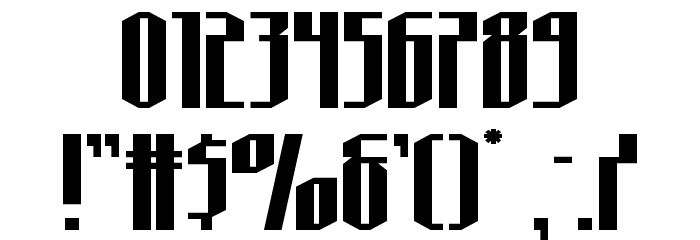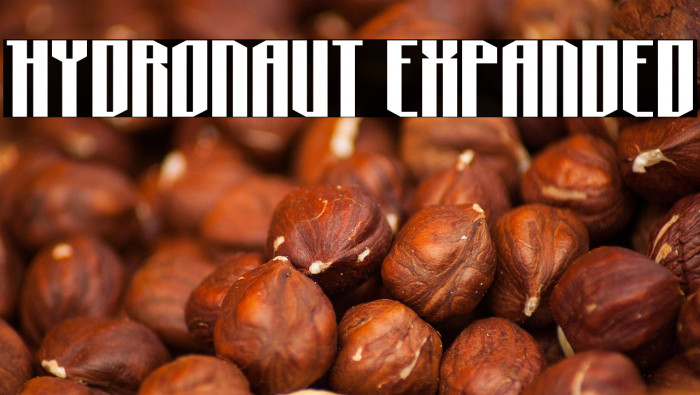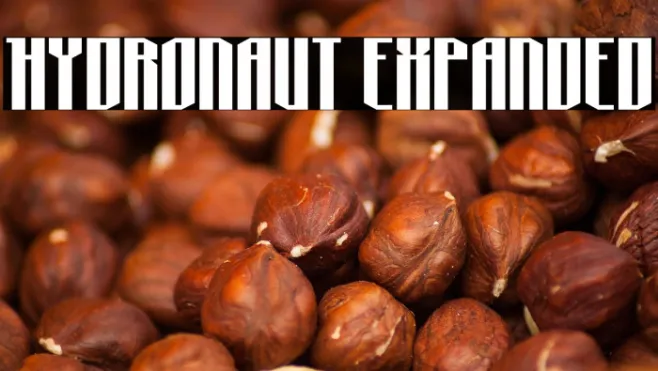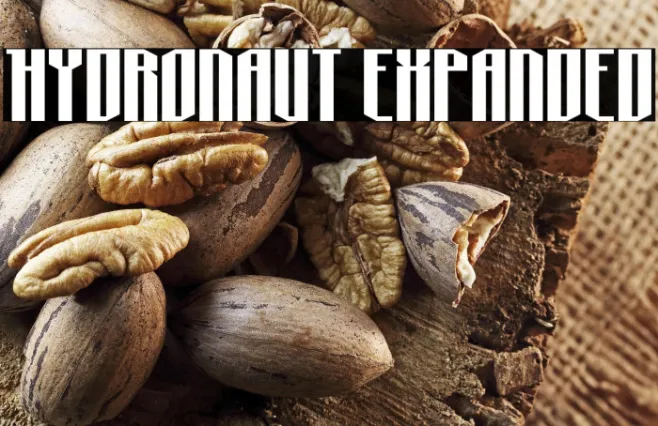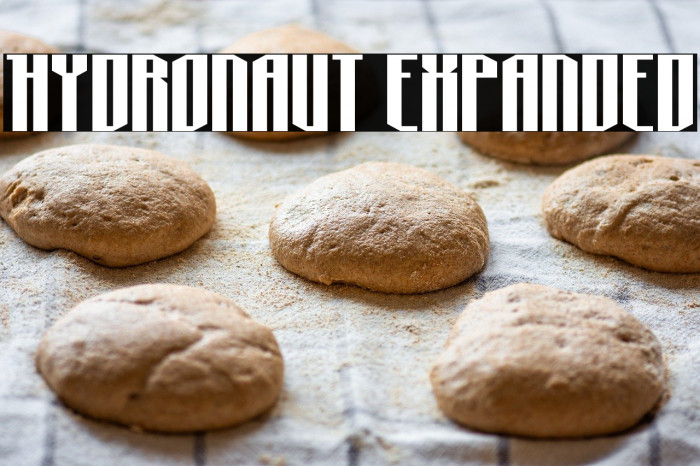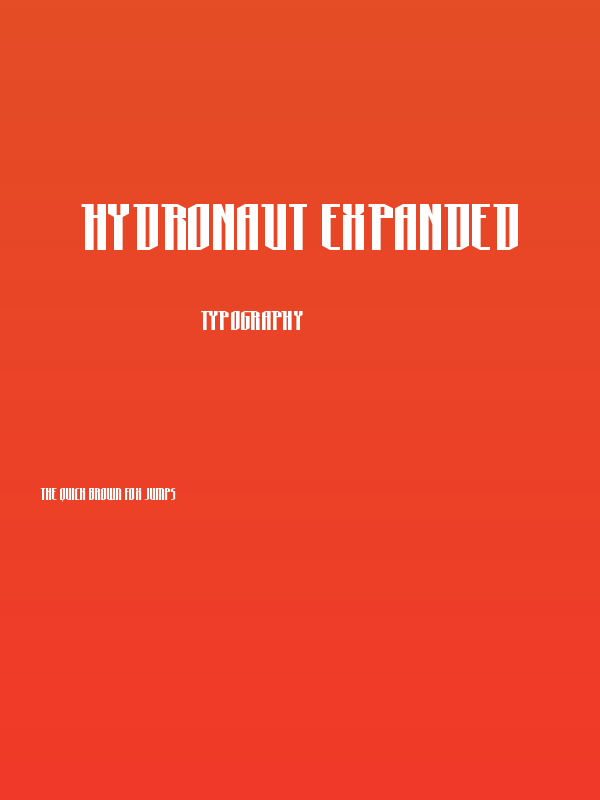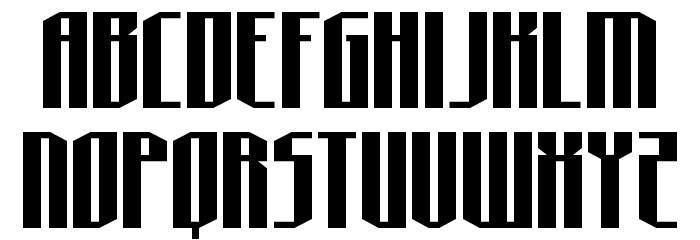
Hydronaut Expanded Font
Hydronaut Expanded Description
This font features a bold and geometric design with a distinctly futuristic and industrial aesthetic. The characters are tall and narrow, with sharp angles and clean lines that create a sense of precision and modernity. The uppercase and lowercase letters maintain a consistent style, emphasizing verticality and symmetry. The numbers and special characters are equally bold, ensuring uniformity across all glyphs. This font's expanded width and strong presence make it ideal for impactful designs.
| Proposed Projects | Ideal for sci-fi themed posters, technology branding, video game titles, and futuristic product packaging. |